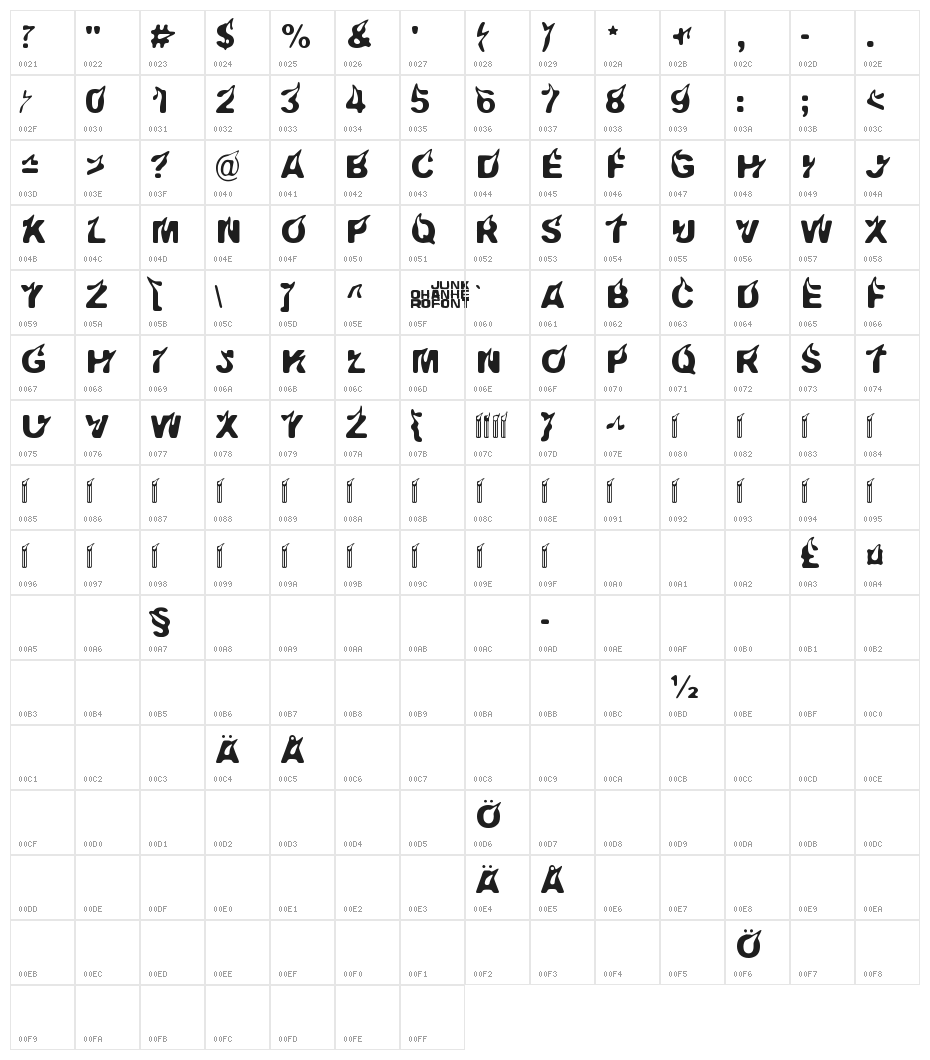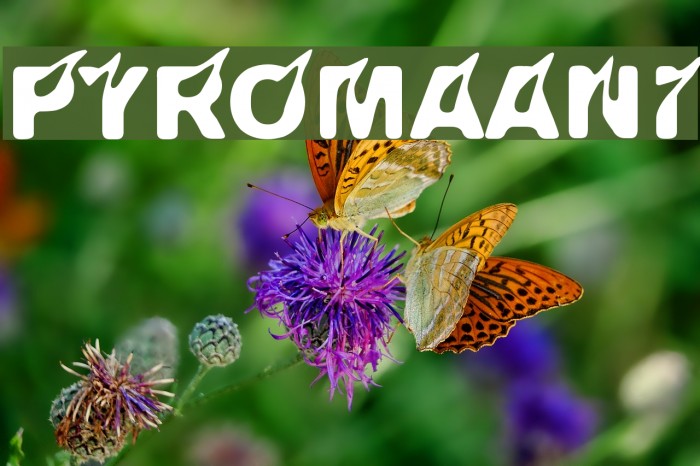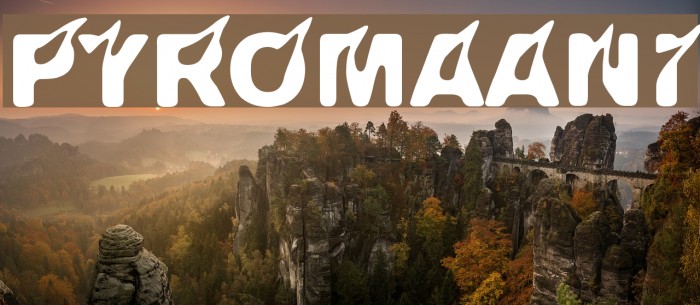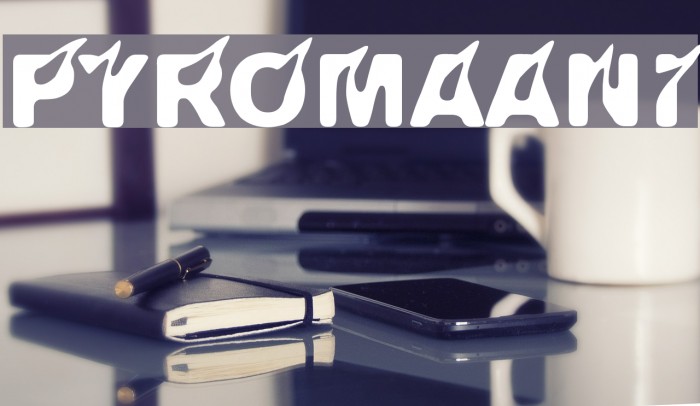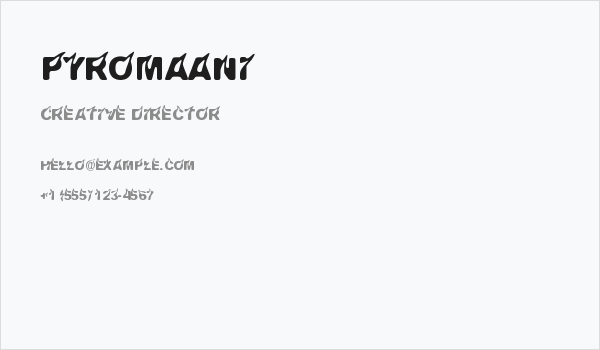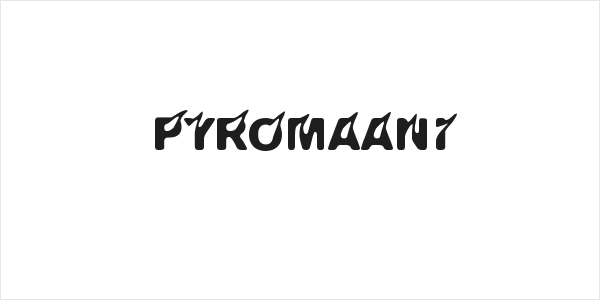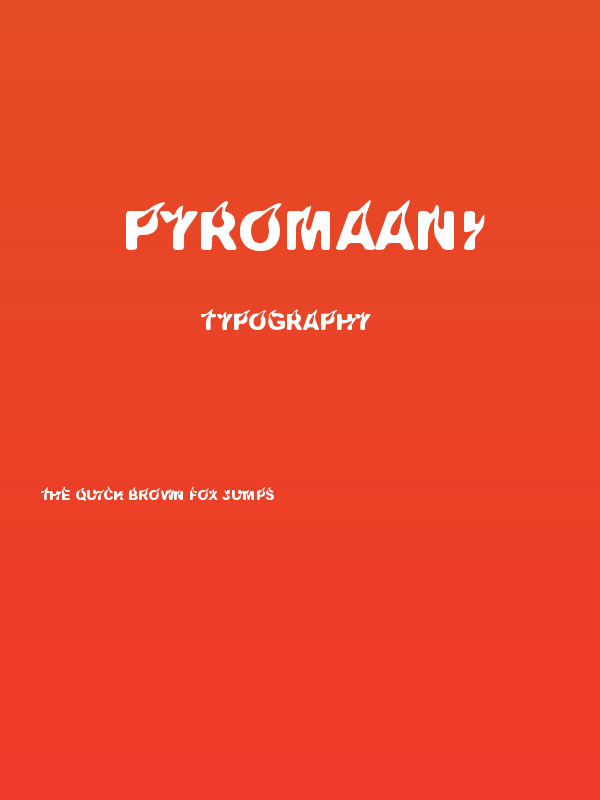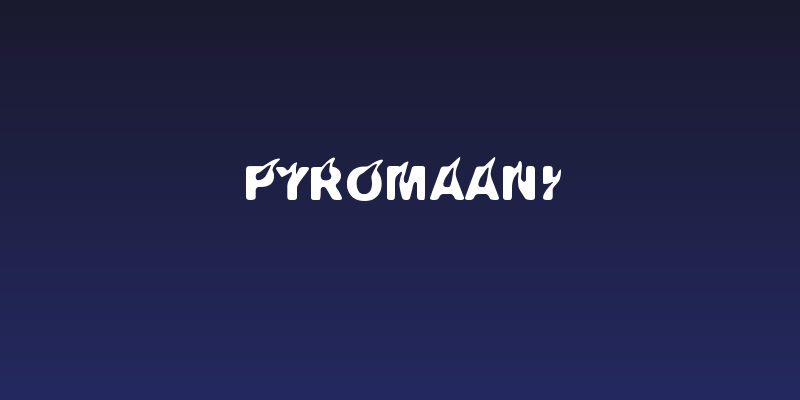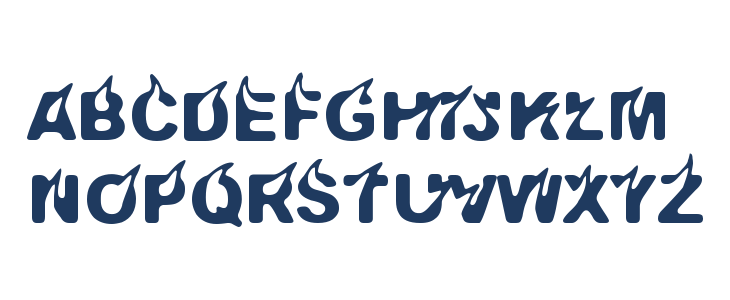
Pyromaani Font
Pyromaani Description
This font features a bold and dynamic style with a fiery, flame-like appearance. The characters are thick and robust, with unique, jagged edges that give them a sense of movement and energy. The uppercase and lowercase letters maintain a consistent design, emphasizing the font's boldness and dramatic flair. The numbers and special characters are equally expressive, making them stand out with their distinctive shapes. This font is perfect for projects that require a strong visual impact and a sense of excitement or intensity.
| Proposed Projects | Ideal for posters, logos, event flyers, and any design needing a bold, energetic look. |